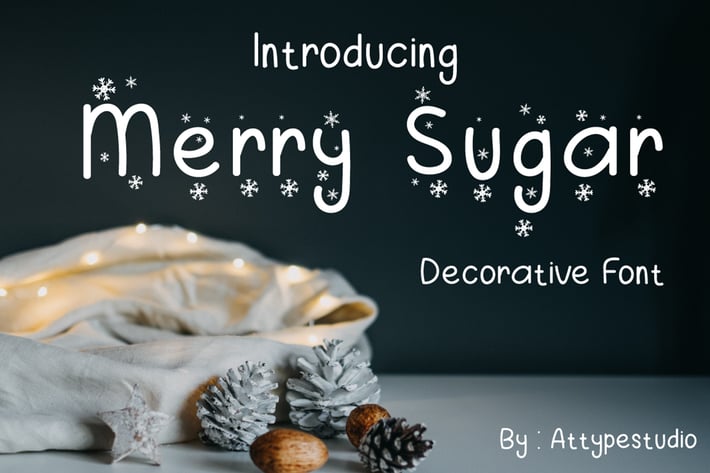
Merry Sugar - Display Font
Attype-Studio
Merry Sugar is the winter season theme font!!
the stylish Snowflake is perfect for wonderful wintertime newsletters, handmade cards, scrapbook page titles, postcards, personalized stationery and more!